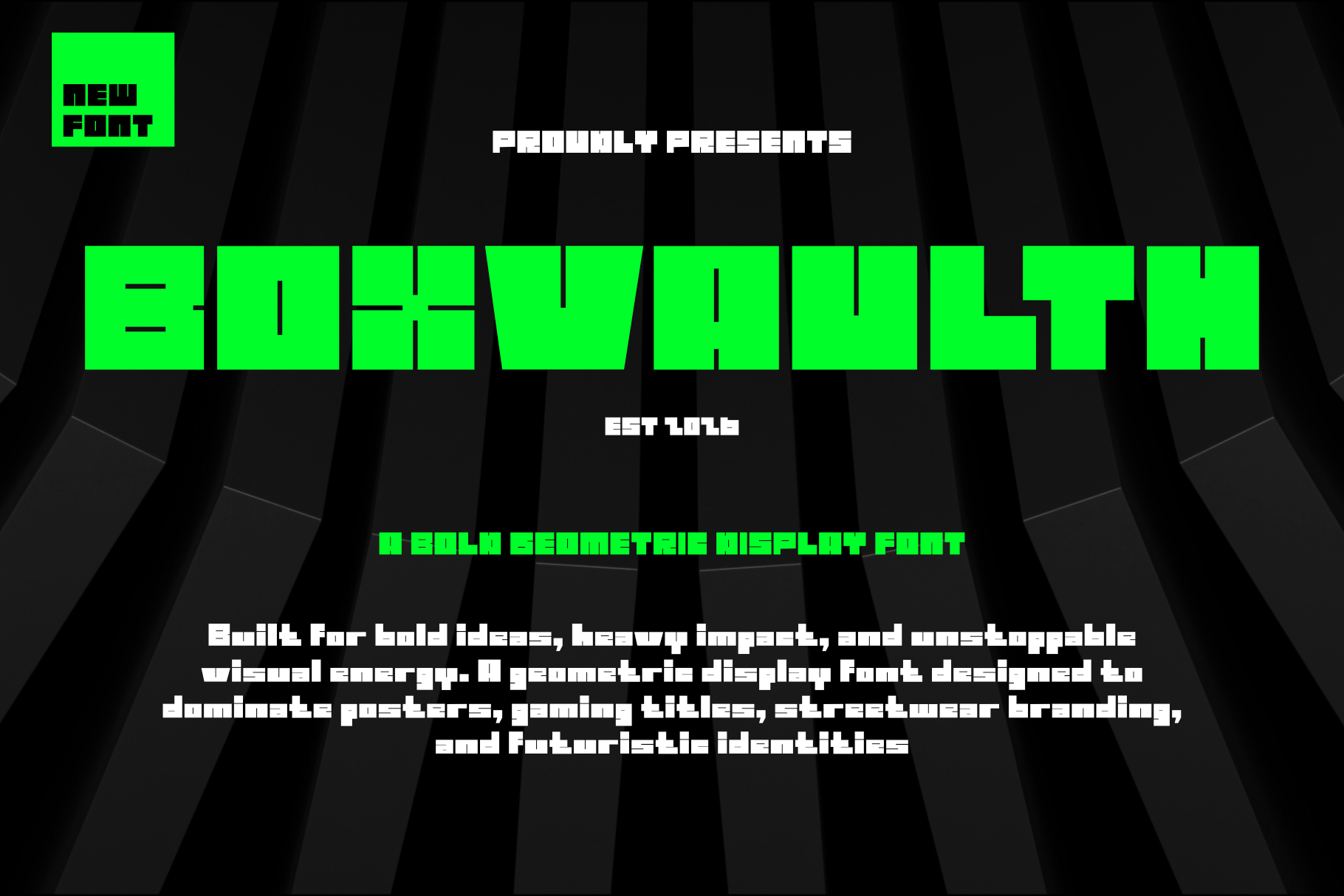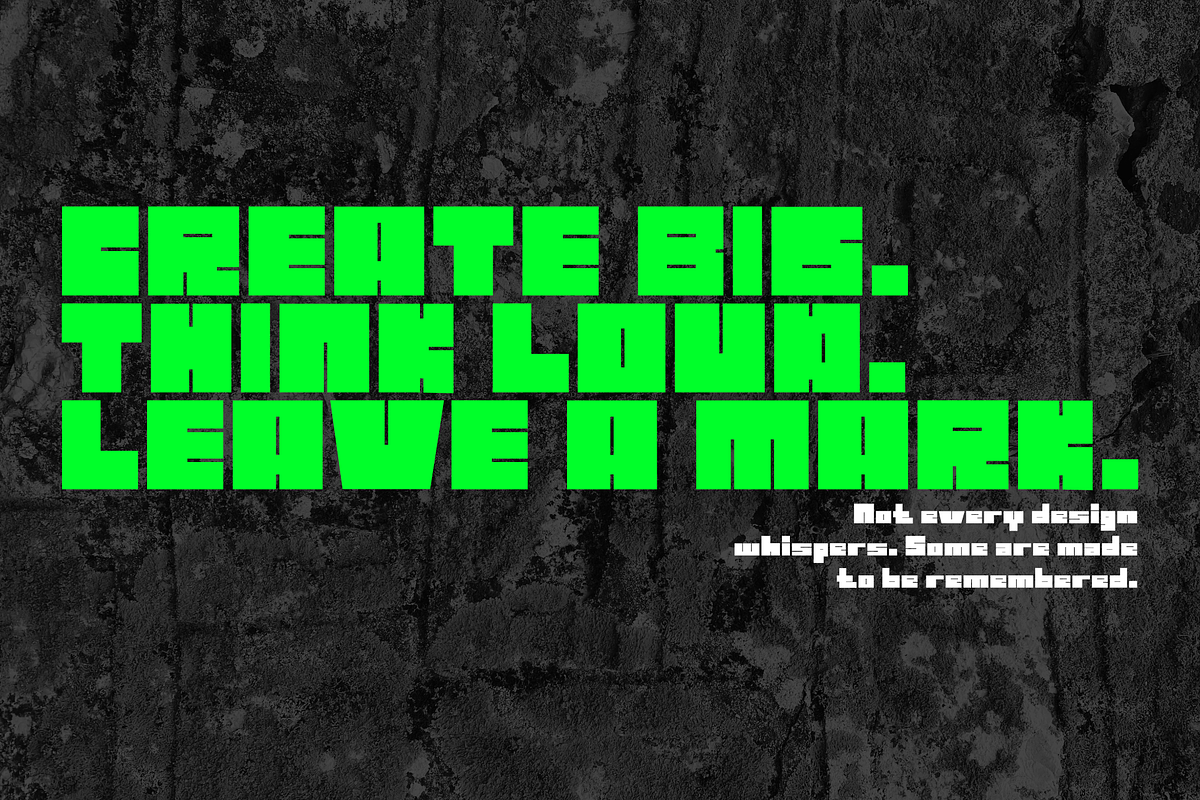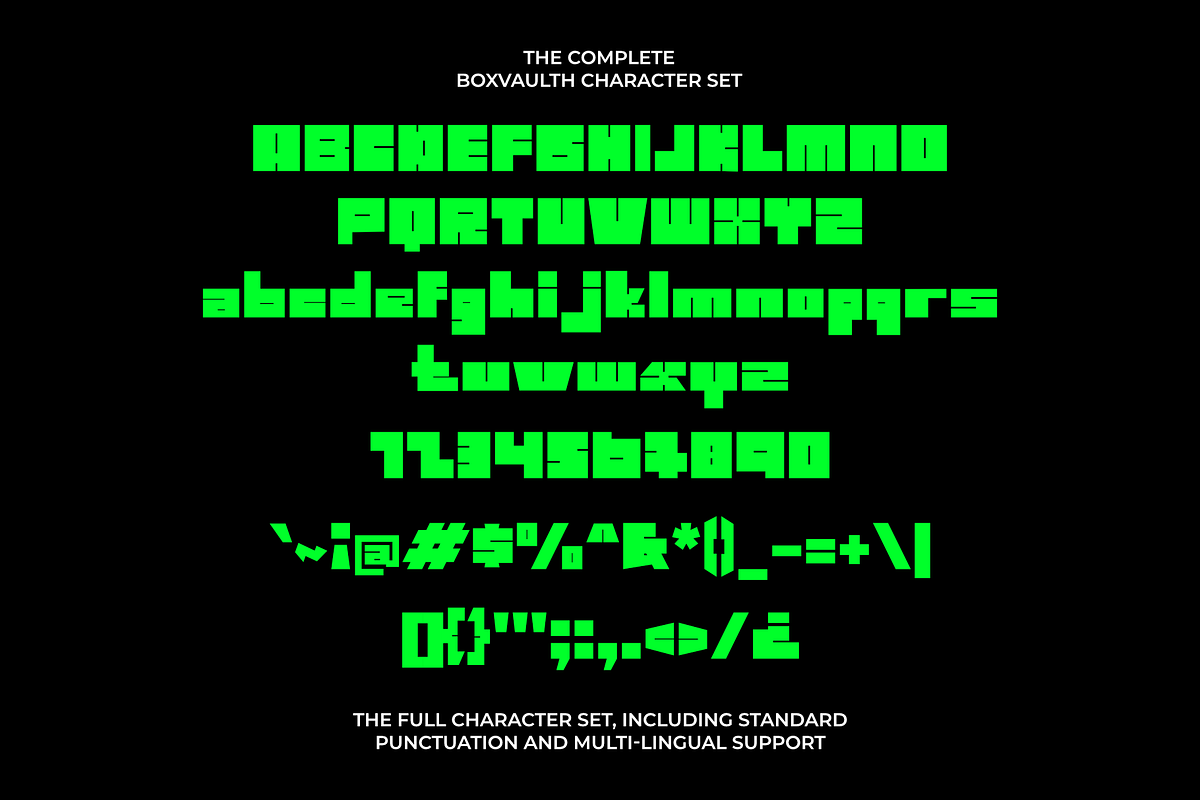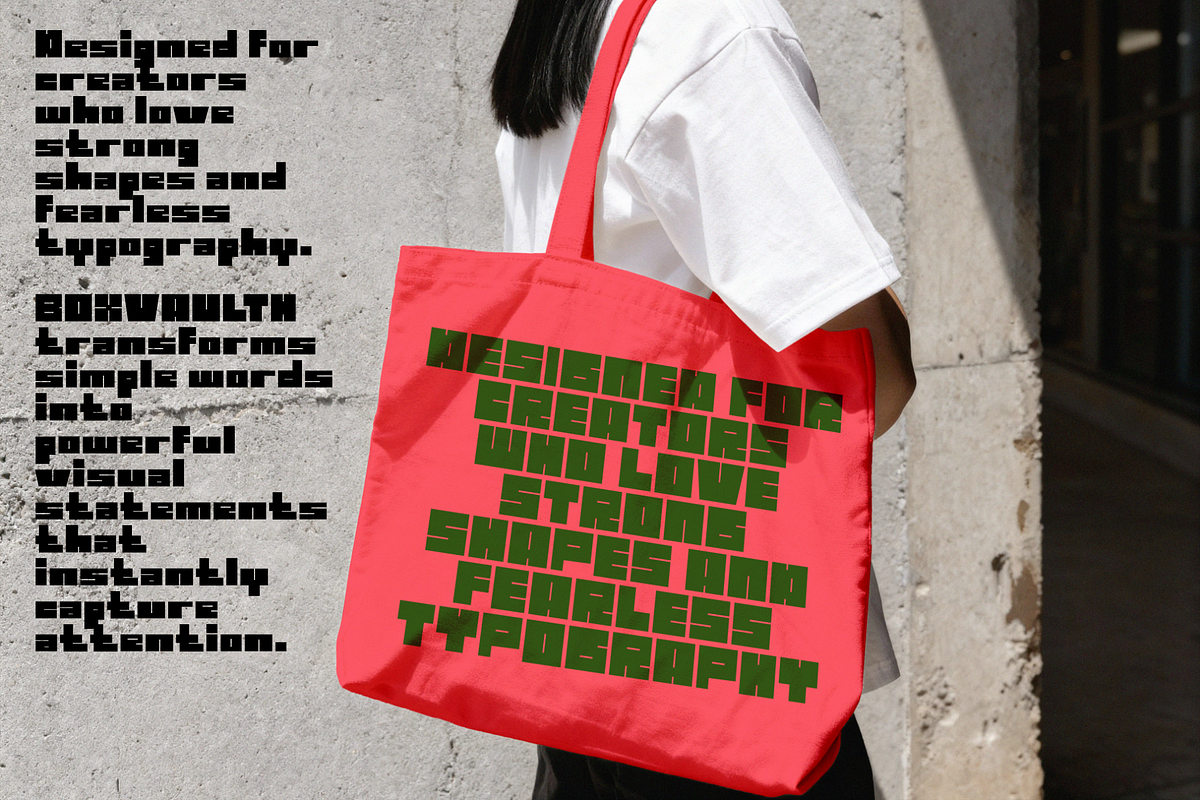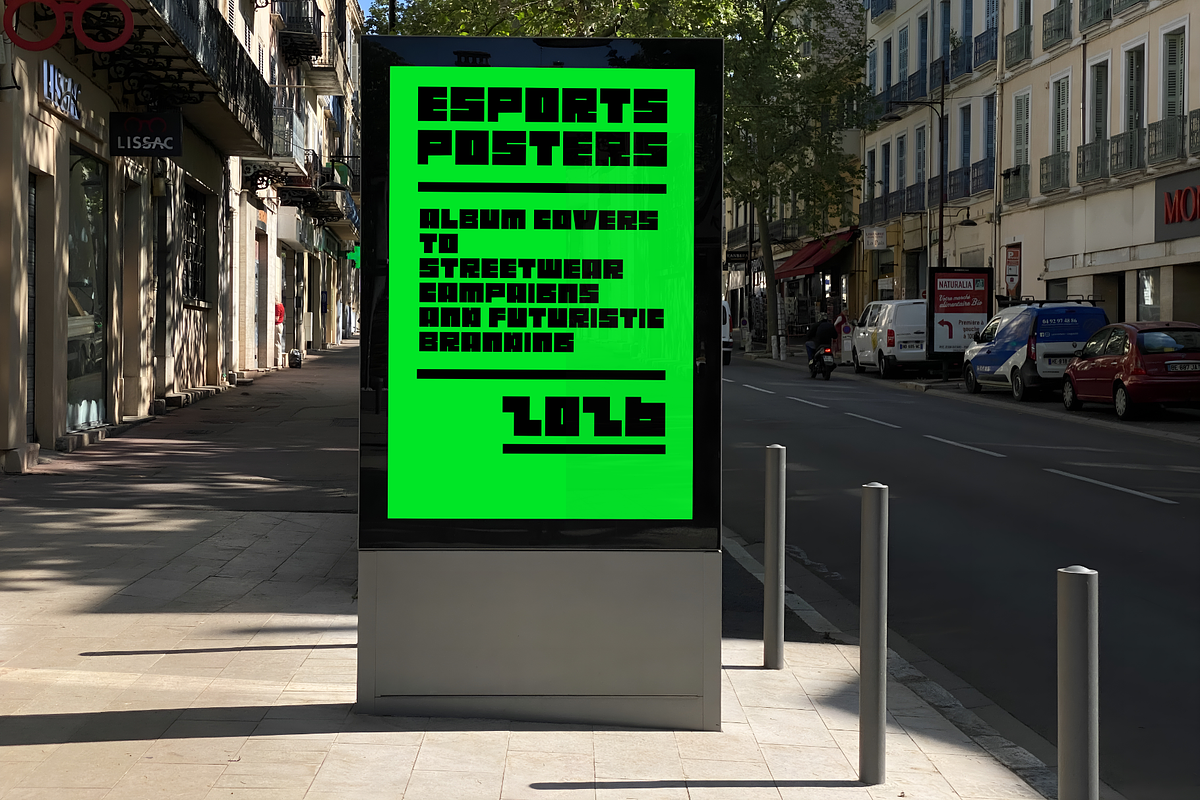
Boxvaulth Bold Geometric Font
Boxvaulth is a bold geometric display font designed to deliver maximum visual impact. With its sharp edges, blocky structure, and futuristic character, this typeface is perfect for projects that demand strong attention and a powerful presence. Inspired by gaming aesthetics, cyberpunk visuals, and modern streetwear culture, Boxvaulth brings an energetic and confident personality to any design.
Ideal for posters, gaming titles, esports branding, album covers, streetwear labels, logos, packaging, social media graphics, and futuristic identities, Boxvaulth is built to make every headline stand out. Its heavy proportions and distinctive letterforms create a memorable look that feels both modern and aggressive.